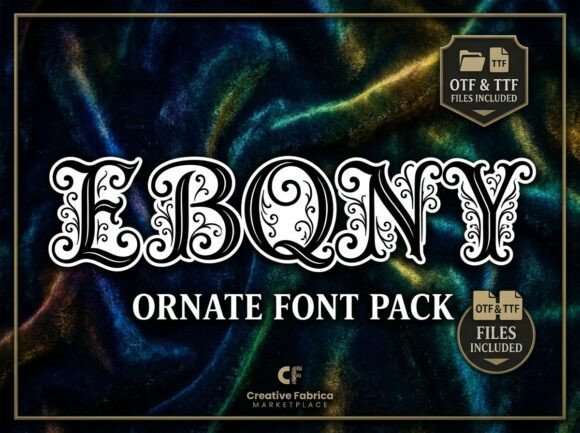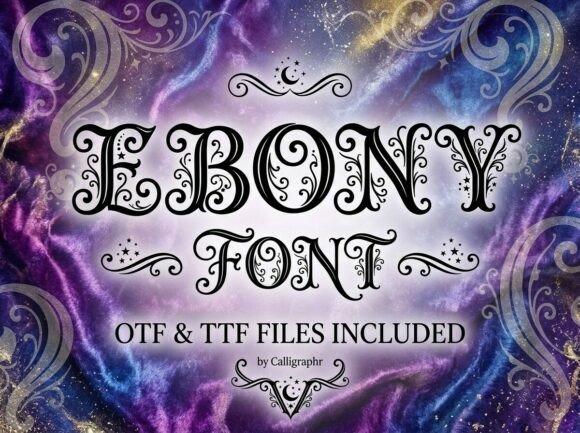
Experience the Enchanting Detail of Ebony Font
Are you a designer or crafter looking for a font that can add a touch of magic to your visual storytelling? Look no further than Ebony, a whimsical ornate font that is sure to captivate and inspire. With its classic, high-contrast letterforms meticulously adorned with intricate internal filigree, swirling vines, and delicate stippled accents, Ebony is the perfect choice for a variety of design projects.
A Romantic Aesthetic with an Artisanal Level of Detail
Ebony’s romantic aesthetic and artisanal level of detail make it an extraordinary choice for a range of applications, from fairytale-themed event invitations to boutique beauty branding, celestial-inspired posters, and sentimental greeting cards. The font’s elegant and refined design is sure to evoke a sense of ethereal beauty, handcrafted precision, and timeless wonder in your visual storytelling.
Whether you are designing for a magical nursery or a high-end luxury brand with a soft touch, Ebony delivers a sense of sophistication and elegance that is sure to impress. The font’s intricate details and ornate flourishes make it perfect for designers and crafters who want to add a touch of whimsy and romance to their work.
Key Features of Ebony Font
- Classic, high-contrast letterforms: Ebony’s letterforms are designed with a classic, high-contrast style that is sure to add a touch of elegance to your design projects.
- Intricate internal filigree: The font features intricate internal filigree that adds a touch of whimsy and romance to your designs.
- Swirling vines and delicate stippled accents: Ebony’s swirling vines and delicate stippled accents add a touch of organic and natural beauty to your designs.
- Romantic aesthetic: The font’s romantic aesthetic makes it perfect for a range of applications, from fairytale-themed event invitations to sentimental greeting cards.
- Artisanal level of detail: Ebony’s artisanal level of detail makes it an extraordinary choice for designers and crafters who want to add a touch of sophistication and elegance to their work.
Use Ebony Font for Your Next Design Project
If you’re looking for a font that can add a touch of magic to your design projects, look no further than Ebony. With its enchanting detail and romantic aesthetic, Ebony is sure to inspire and captivate your audience. Here are some ideas for using Ebony font in your next design project:
- Fairytale-themed event invitations: Ebony’s whimsical and romantic design makes it perfect for fairytale-themed event invitations, such as wedding invitations, baby showers, and birthday parties.
- Boutique beauty branding: The font’s elegant and refined design makes it perfect for boutique beauty branding, such as logos, packaging, and advertising materials.
- Celestial-inspired posters: Ebony’s celestial-inspired design makes it perfect for posters, flyers, and brochures that feature a magical or whimsical theme.
- Sentimental greeting cards: The font’s romantic aesthetic makes it perfect for sentimental greeting cards, such as Valentine’s Day cards, Mother’s Day cards, and anniversary cards.
In conclusion, Ebony font is a whimsical ornate font that is sure to captivate and inspire designers and crafters. With its classic, high-contrast letterforms meticulously adorned with intricate internal filigree, swirling vines, and delicate stippled accents, Ebony delivers a sense of ethereal beauty, handcrafted precision, and timeless wonder to your visual storytelling. Whether you’re designing for a magical nursery or a high-end luxury brand with a soft touch, Ebony is the perfect choice for your next design project.